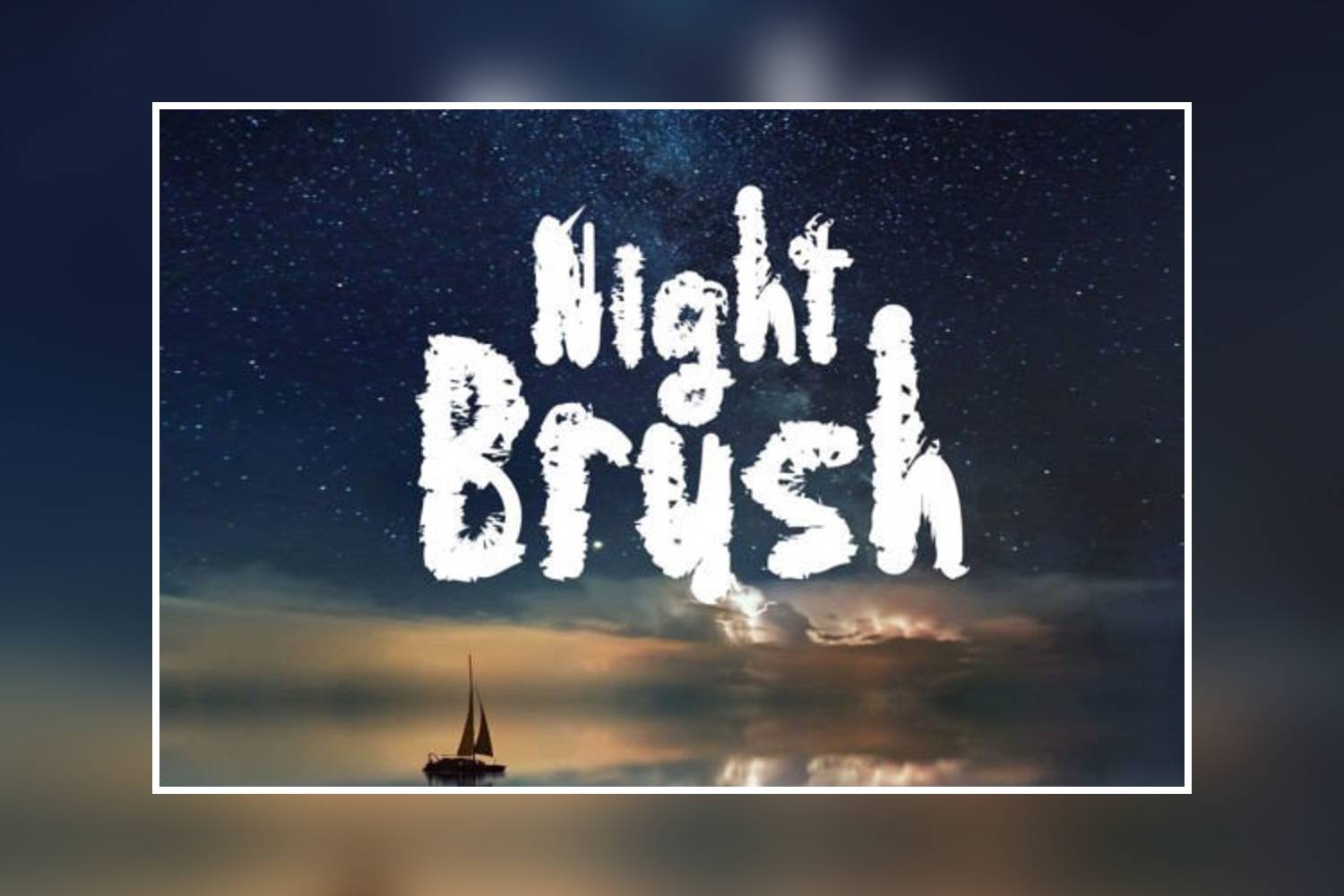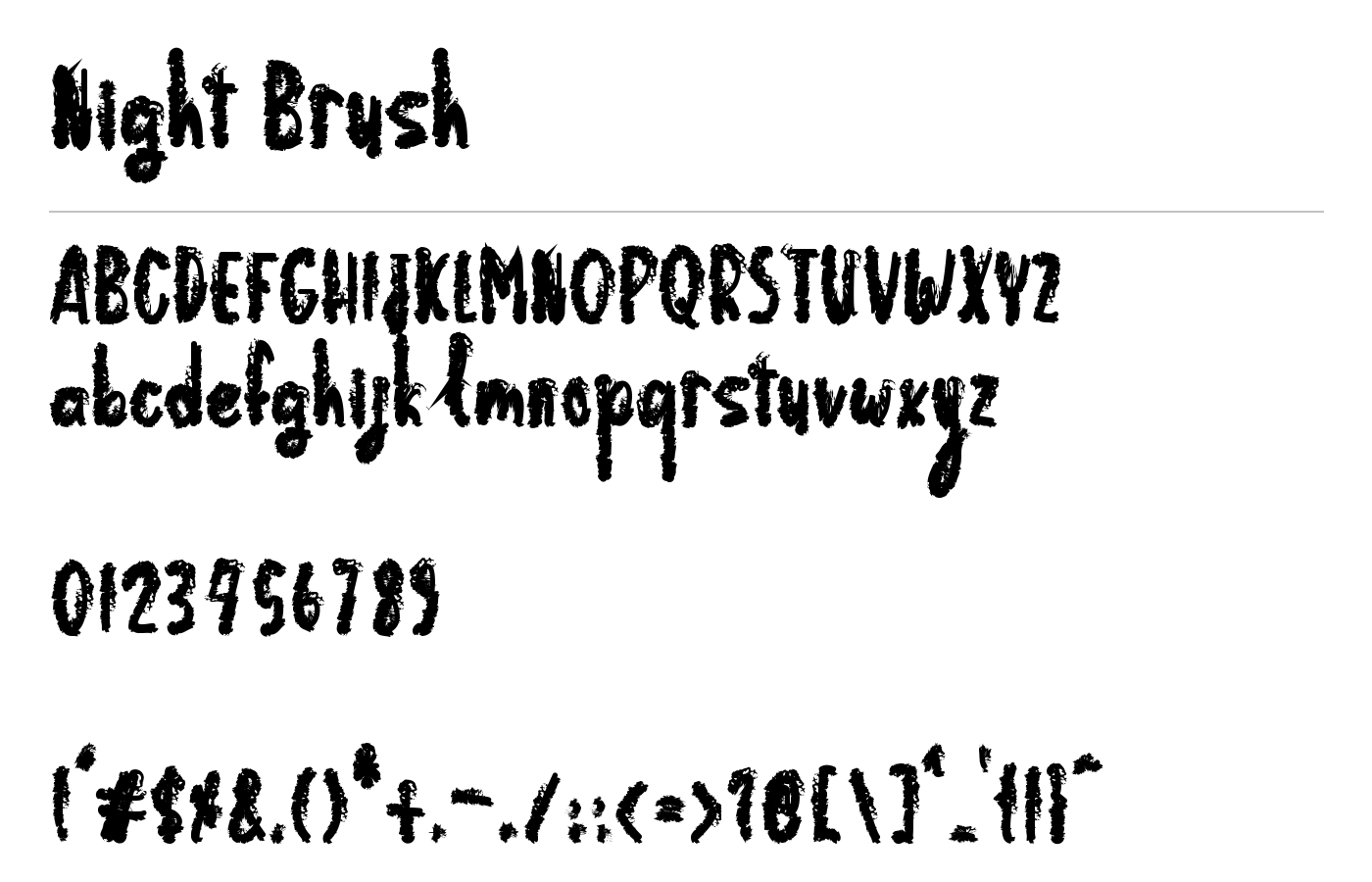
Night Brush is a bold, textured brush-style font that captures a raw, energetic feel with its rough edges and uneven strokes. Its strong, hand-painted appearance makes it ideal for creative, casual, or expressive branding and design projects where a handmade, artistic vibe is desired. This font works particularly well for headlines, posters, and packaging that seek to stand out with a bold, dynamic personality.
Night Brush Font
About Night Brush Font
| Font family | Night Brush Font |